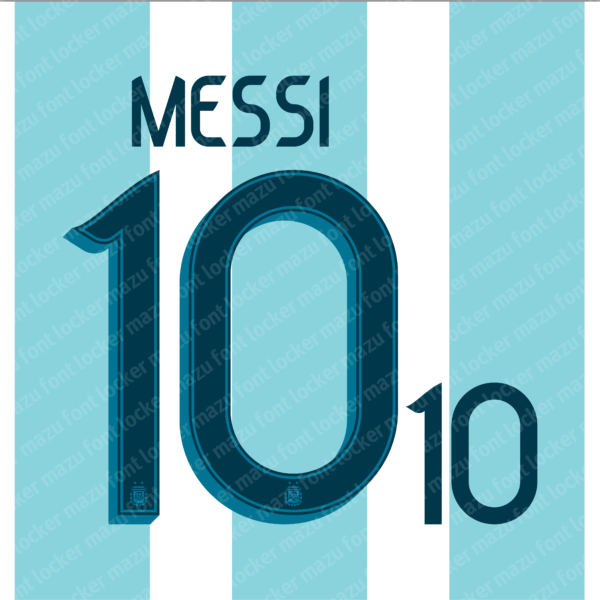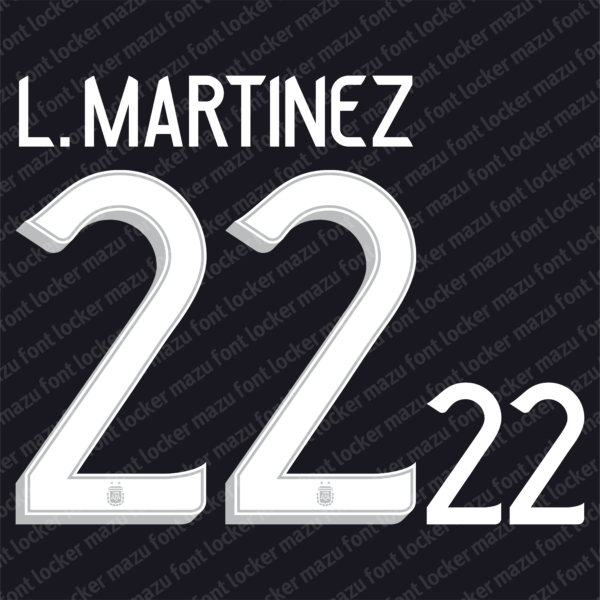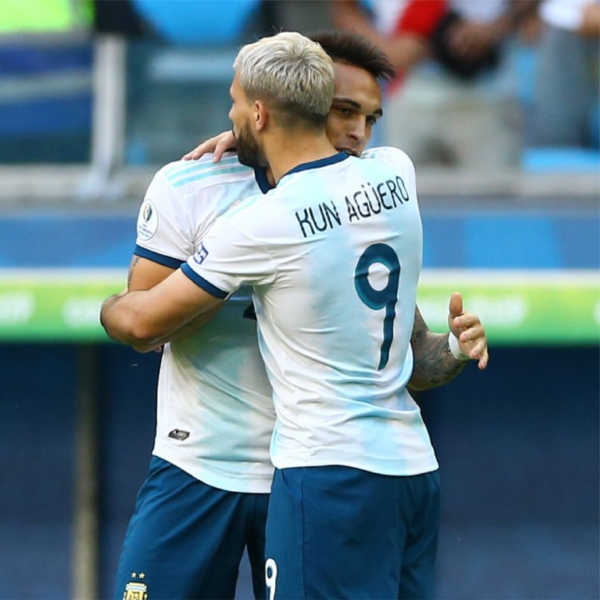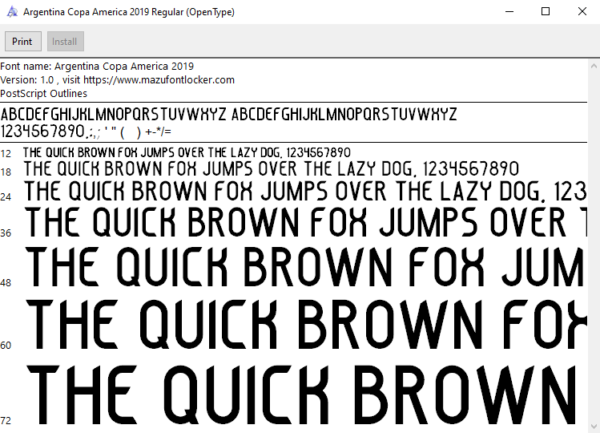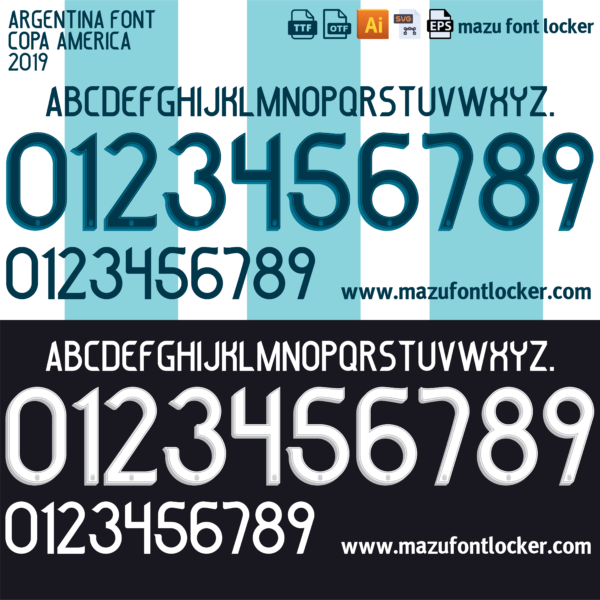
Argentina Copa America 2019 Font Vector – Legendary Albiceleste Triumph Masterpiece
Download the premium Argentina Copa America 2019 Font and bring the iconic spirit of South American football excellence into your creative projects with authentic professional precision. Inspired by the official jersey lettering used during the historic Copa America 2019 tournament, the Argentina Copa America 2019 Font delivers a bold, elegant, and championship-level aesthetic that perfectly captures the pride, passion, and winning mentality of the Albiceleste national team.
Argentina Copa America 2019 Font Vector
The Argentina Copa America 2019 Font is a premium, high-precision football jersey font vector expertly crafted to embody the fearless identity, rich heritage, and unforgettable passion of Argentina’s historic Copa America journey.
Inspired by the Albiceleste’s fighting spirit, their relentless pursuit of glory, and their iconic performances during the Copa America 2019 campaign, this font delivers a bold, elegant, and commanding visual style that captures the true essence of South American football greatness. Every letter and number has been meticulously recreated with razor-sharp precision to reflect the pride, determination, and legendary sky-blue and white identity that defines Argentina on the international stage.
Celebrate the legacy of Argentina. Unleash the spirit of the Albiceleste. Bring the unstoppable passion of Copa America 2019 greatness to life with the Argentina Copa America 2019 Font.
🔥 Argentina Copa America 2019 Font Features
• Authentic 2019 Argentina Copa America jersey lettering style
The authentic lettering style helps recreate the classic look of the Argentina Copa America 2019 kit with professional accuracy.
Unlike generic jersey fonts, this set is designed with a strong focus on authenticity and accuracy. Every detail is based on the original match lettering style used during the Copa America 2019, helping designers and collectors create realistic football shirt designs.
This Argentina Copa America 2019 font vector set is designed for authentic football jersey customization and works perfectly for retro football projects, collector designs, and professional sportswear artwork.